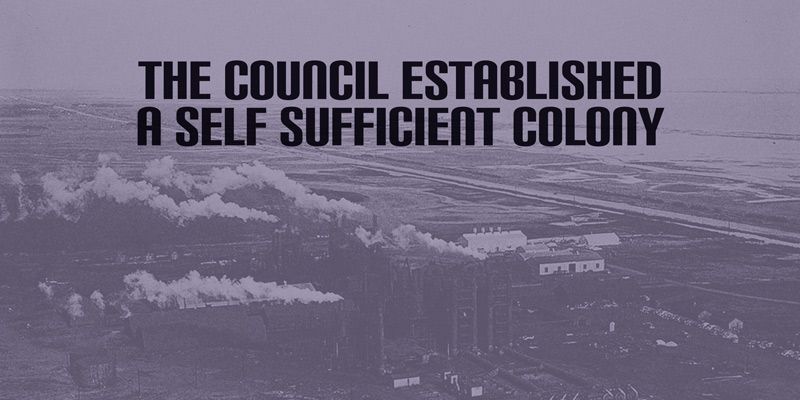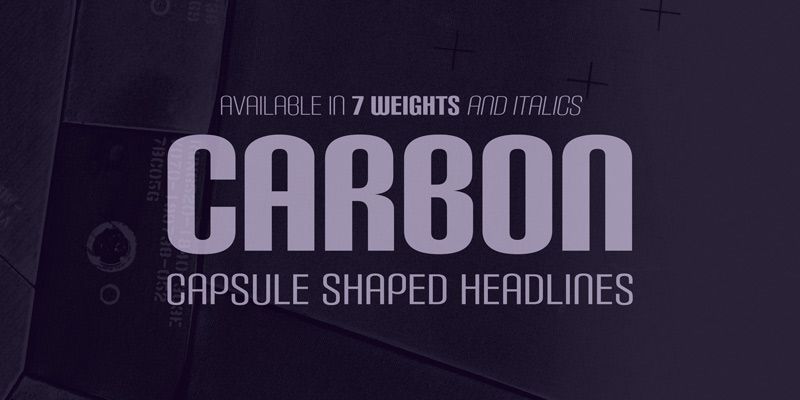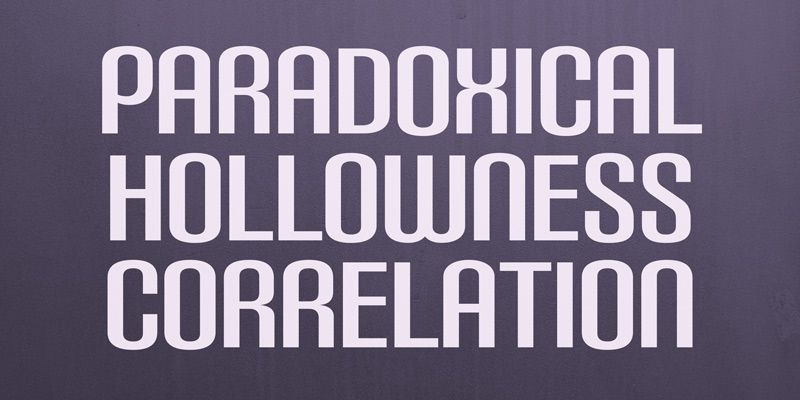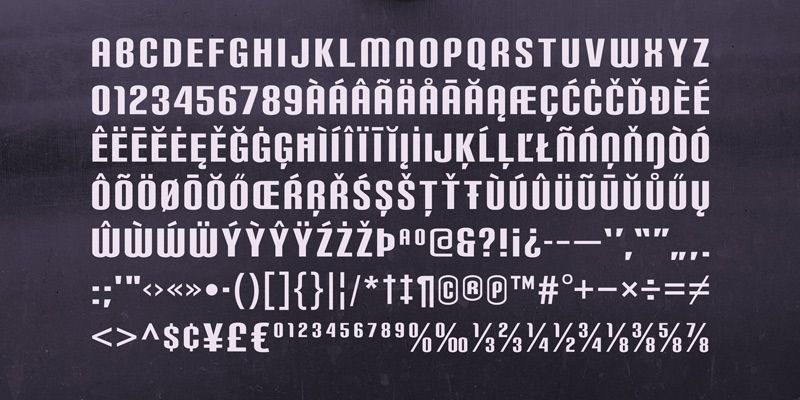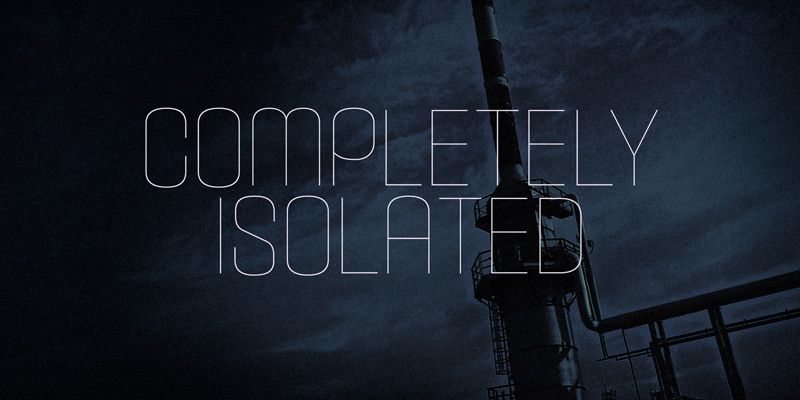
Carbon builds a technical alphabet from recurring rounded slots and straight-sided forms. Its deliberate geometry creates a steady, manufactured rhythm, especially in the compact lowercase and unicase-like shapes. The result is distinct without relying on slanted racing clichés. Carbon suits the names and graphics of products made from advanced materials: bicycle frames, composite components, protective equipment, robotics hardware, and battery systems. Its lighter and heavier styles can give related labels different levels of emphasis across a product, brochure, or exhibition display. Use the more decorative effects selectively when the application calls for a material reference; the core letterforms already supply a clear structural identity.